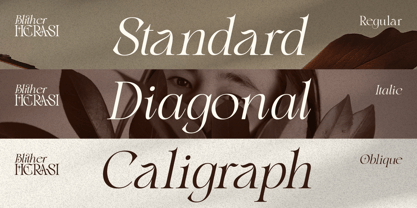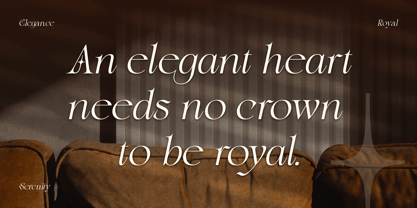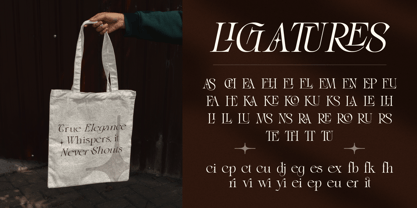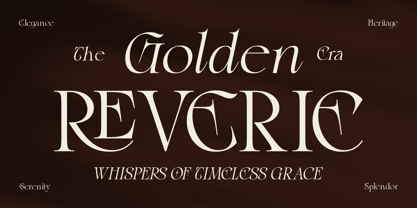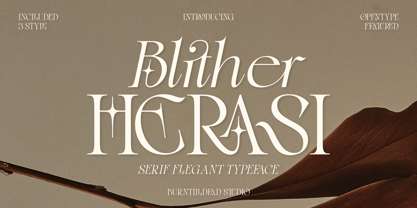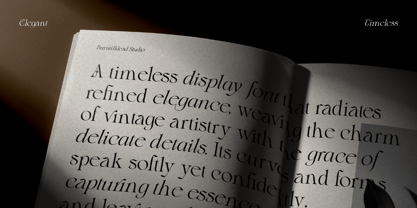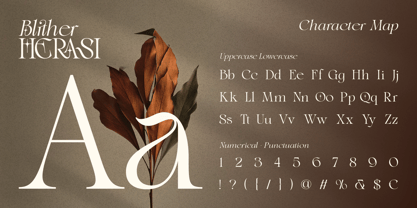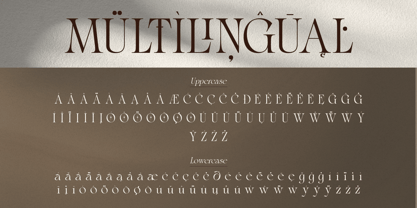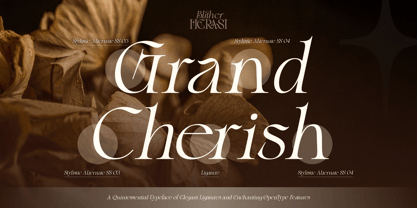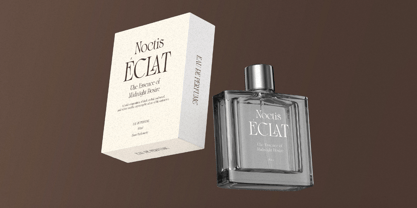
Blither Herasi
La familia tipográfica Blither Herasi fue diseñada por Eric Kurniawan y publicada por Burntilldead. Blither Herasi contiene 3 estilos y opciones de paquete familiar. Más información sobre esta familia
Blither Herasi is an elegant serif typeface with a modern yet slightly gothic touch. It’s stylish, dramatic, and versatile, perfect for branding, editorial layouts, fashion projects, logos, and more. With its unique curves and timeless vibe, this font brings a classy but edgy feel to any design.
This typeface comes with three styles (Regular, Italic, and Oblique), making it easy to match your creative needs. Whether you want a high-fashion aesthetic, a vintage inspired poster, or a striking logo.
Blither Herasi is an elegant serif, but not your typical classy font. With a subtle touch of gothic flair, it brings a mysterious yet artsy vibe to your design.
Features:
• A - Z set (Uppercase & Lowercase)
• Number
• Punctuation
• Alternate
• Ligature
• Multilingual